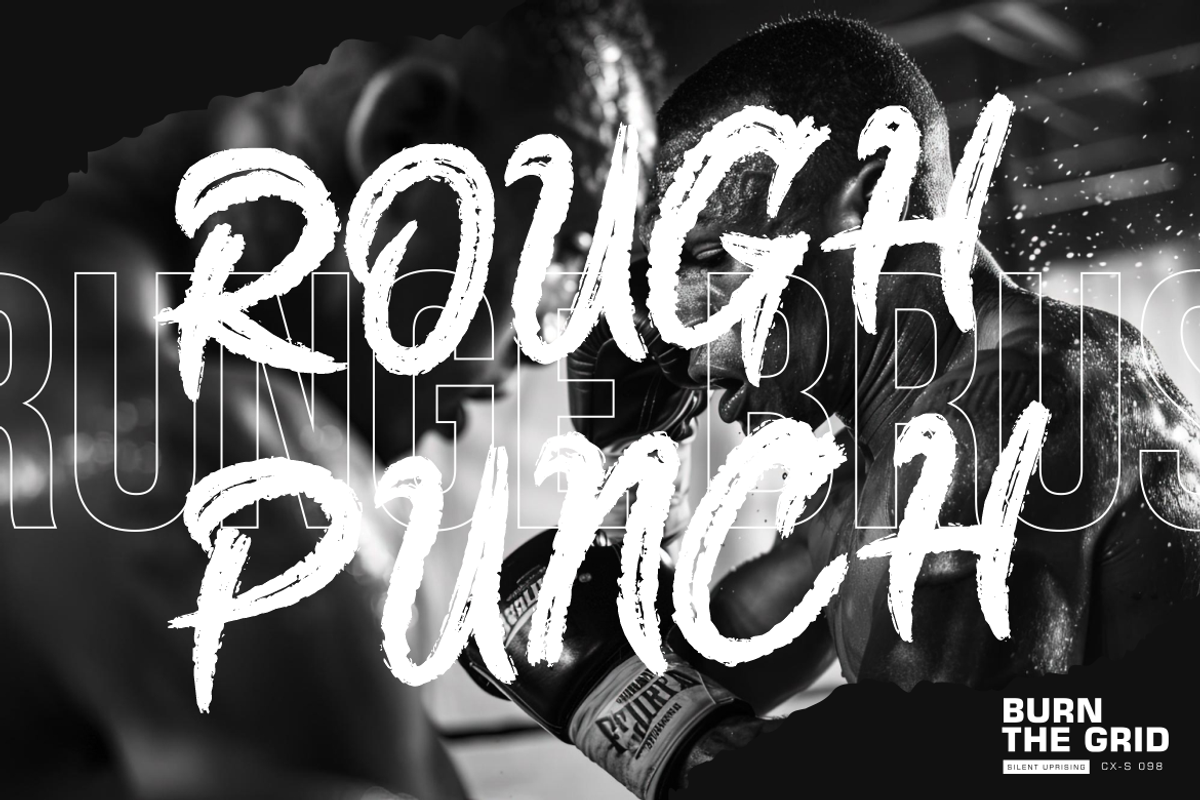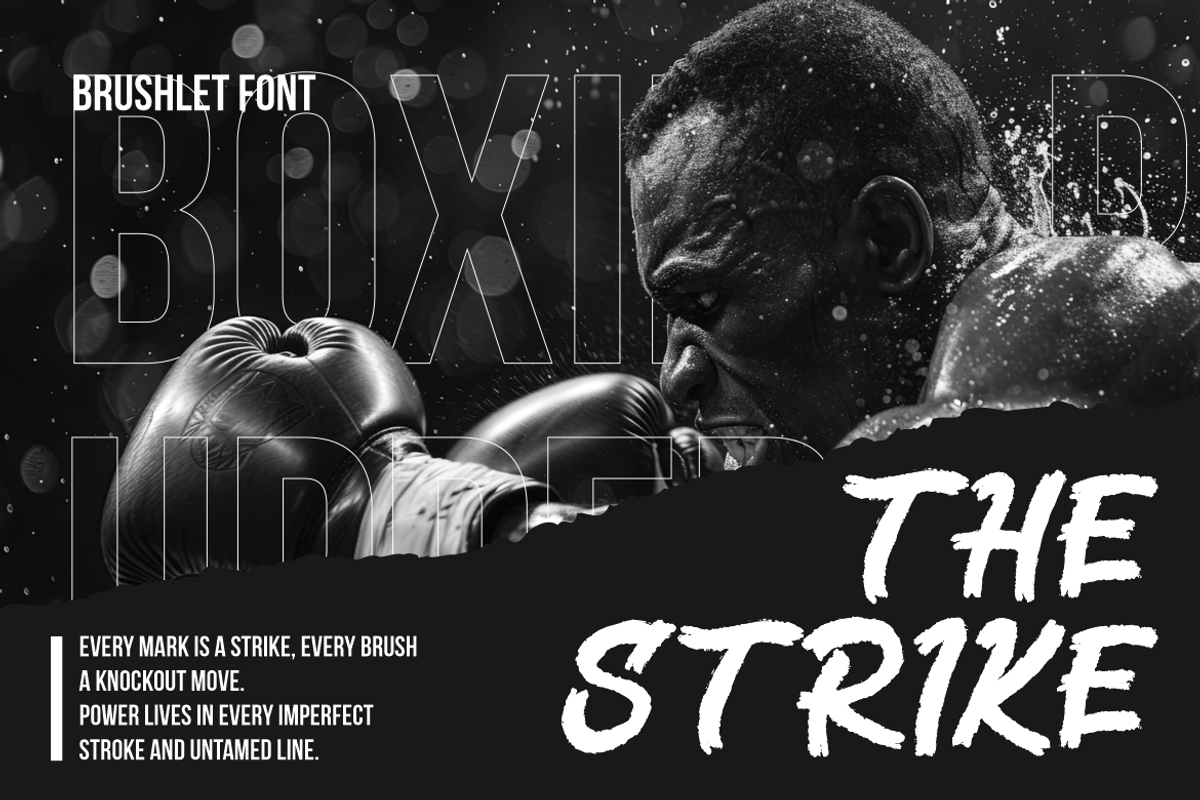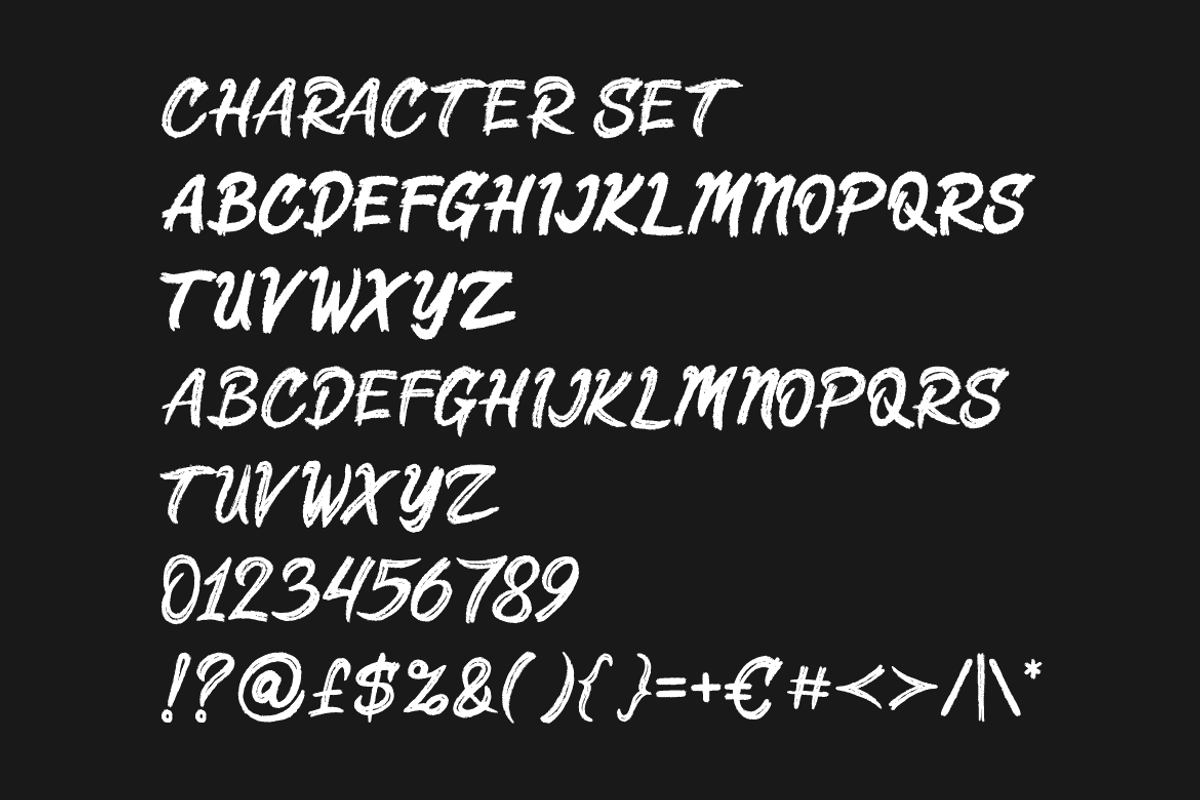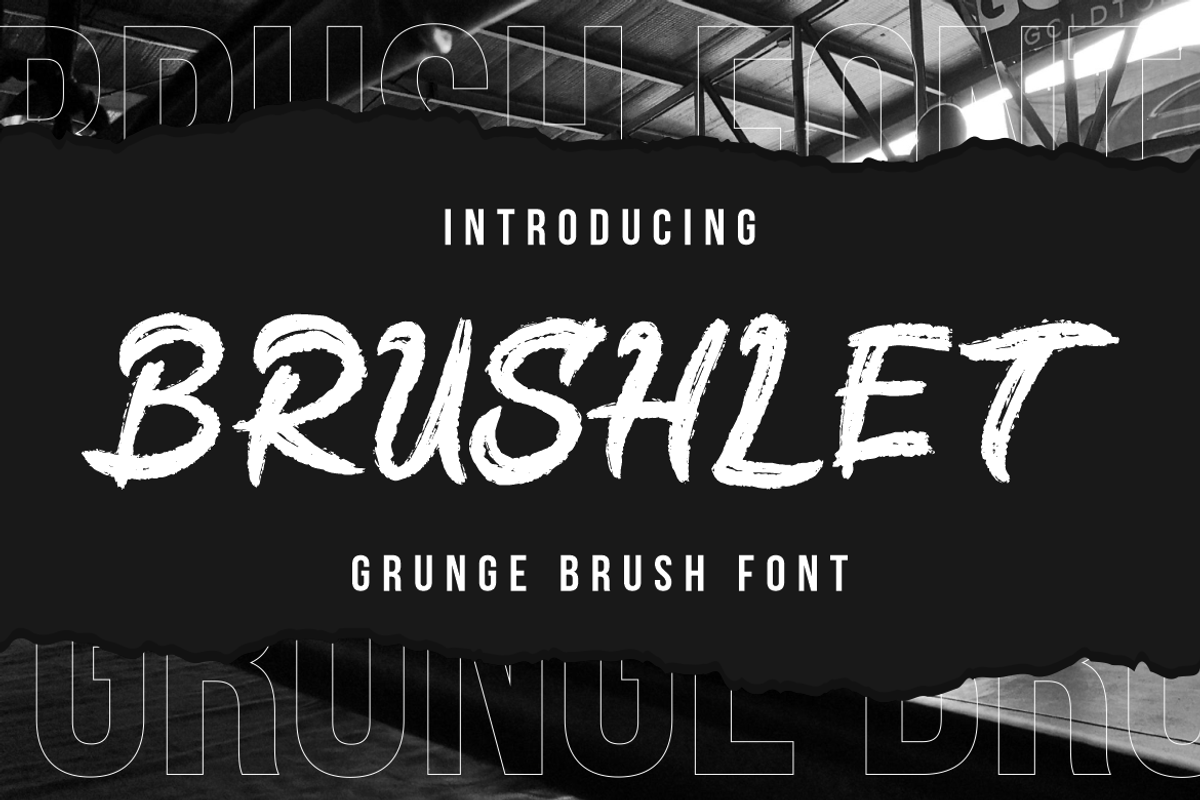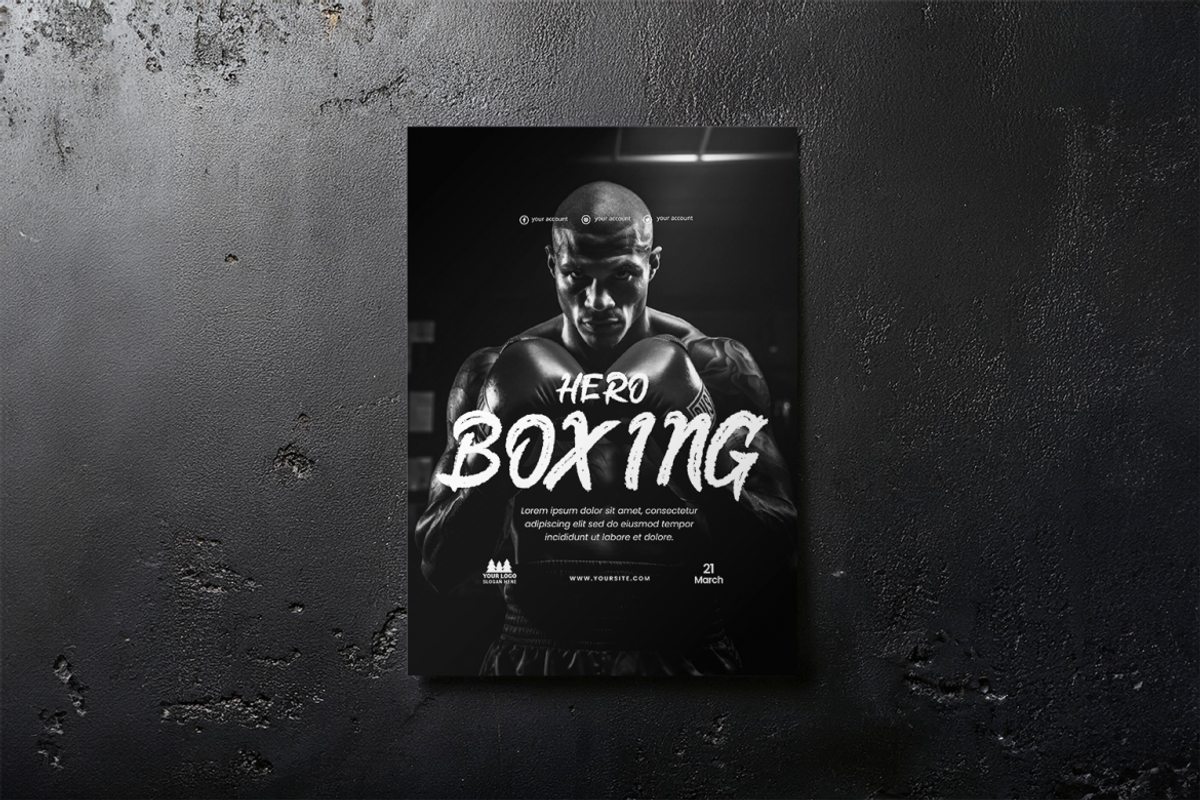
Brushlet Grunge Brush Font
Brushlet Grunge Brush Font is a raw and expressive typeface designed to capture attention with every imperfect stroke. Inspired by the energy of hand-painted brush lettering, this font combines bold texture with rugged edges to create a gritty yet stylish appearance. Each letter carries a sense of motion and intensity, making it perfect for designs that demand power and authenticity. With its dynamic brush lines, Brushlet balances chaos and control, offering designers a unique blend of handcrafted realism and professional usability.
This font is highly versatile, suited for posters, branding, packaging, music covers, or bold advertising campaigns. Its textured strokes bring life to digital and print designs, adding emotion and personality that polished fonts can’t replicate. Whether you are designing logos, film titles, book covers, or streetwear branding, Brushlet creates a powerful visual statement. Its handlettering style adds authenticity, while the grunge texture ensures your message stands out with confidence and impact.